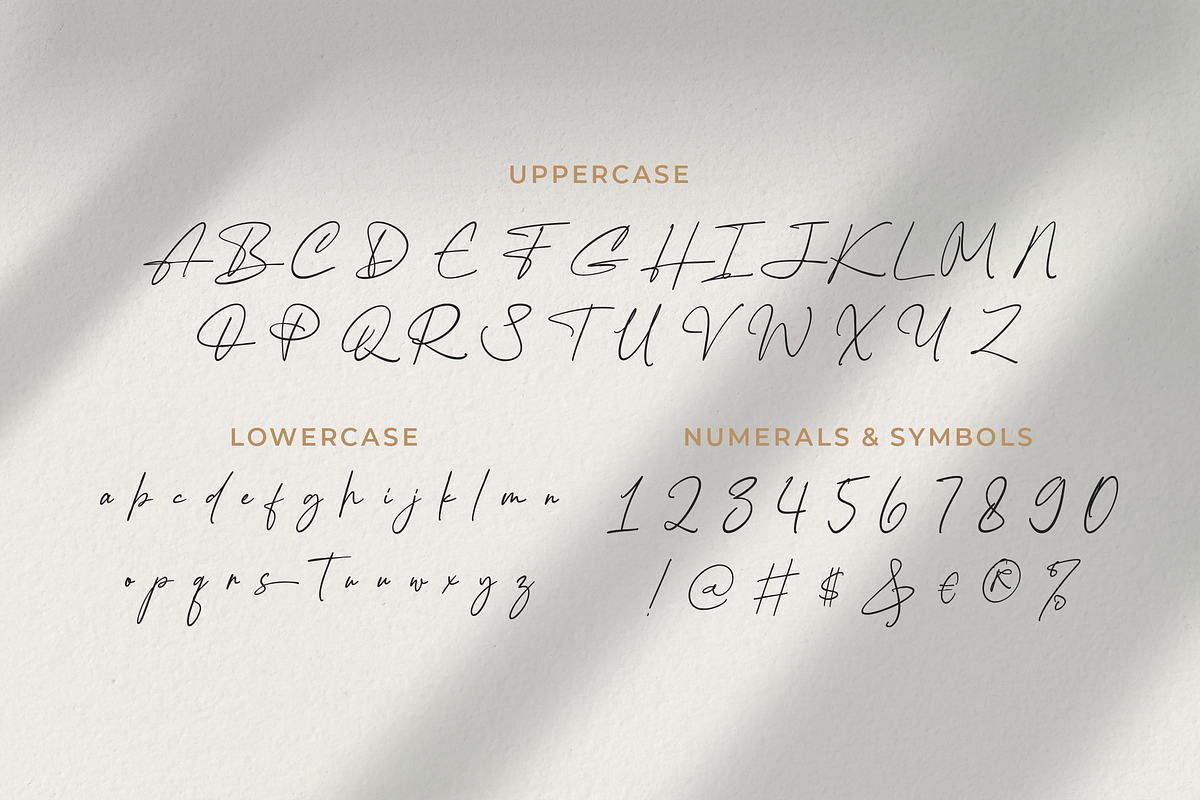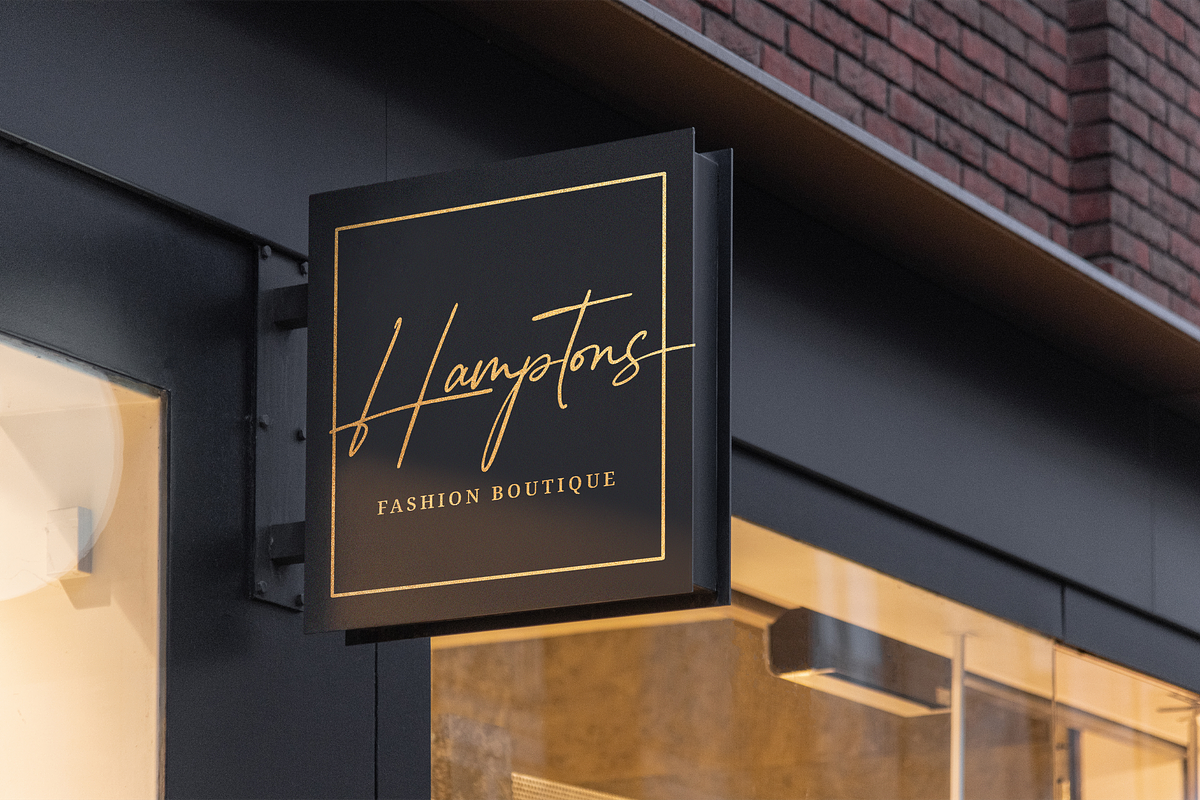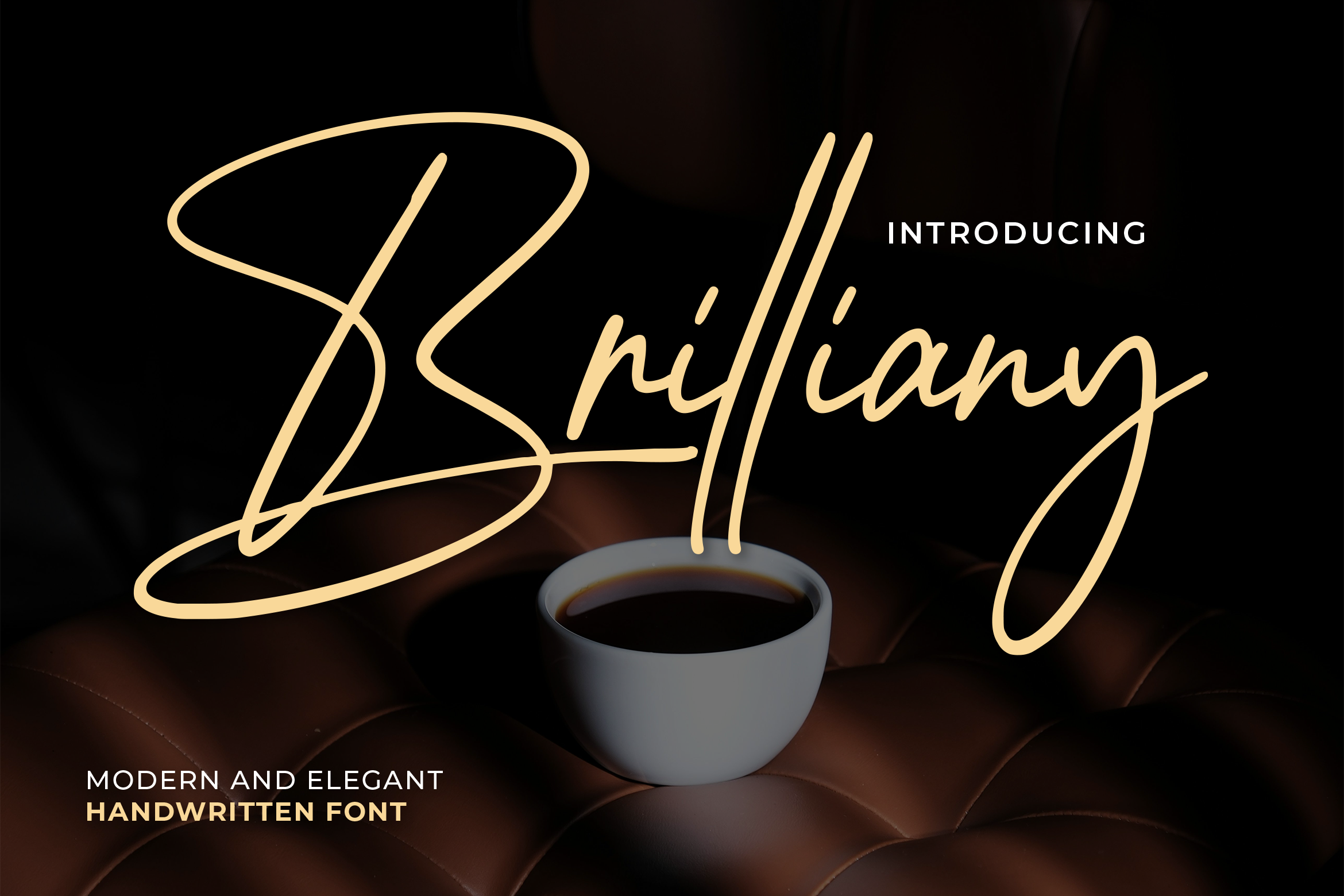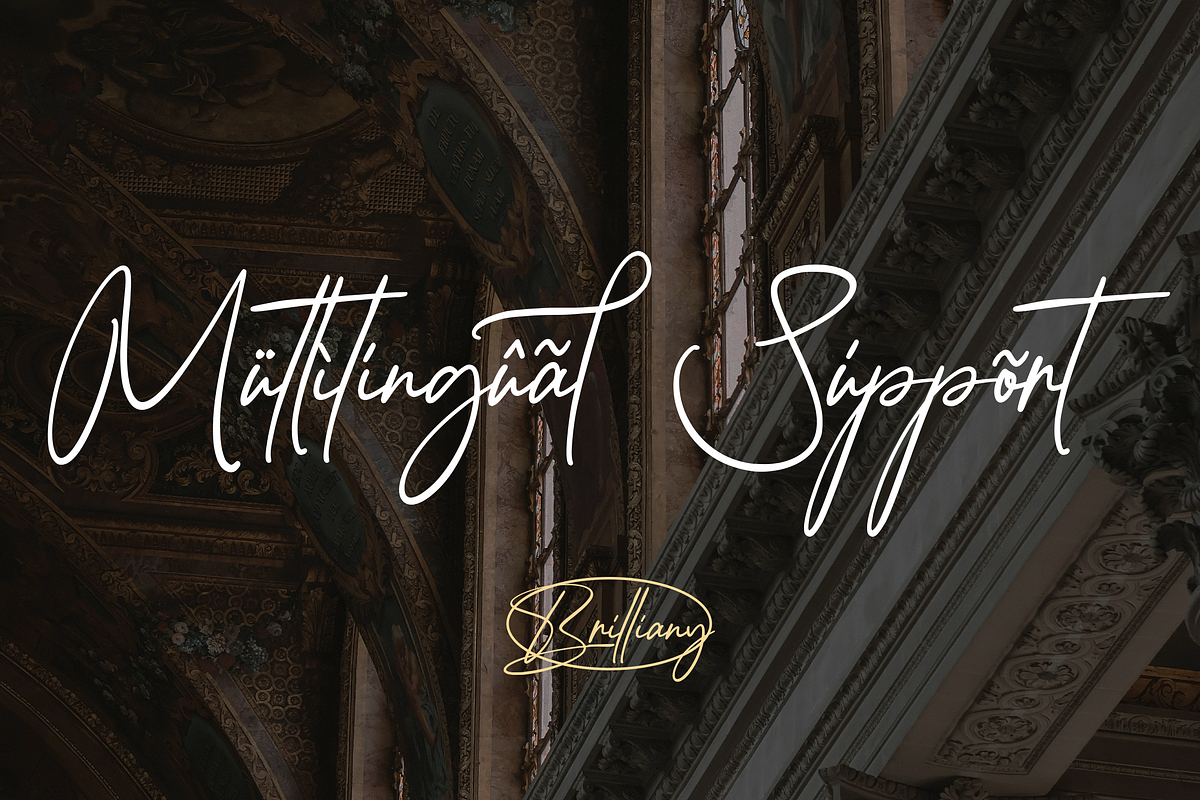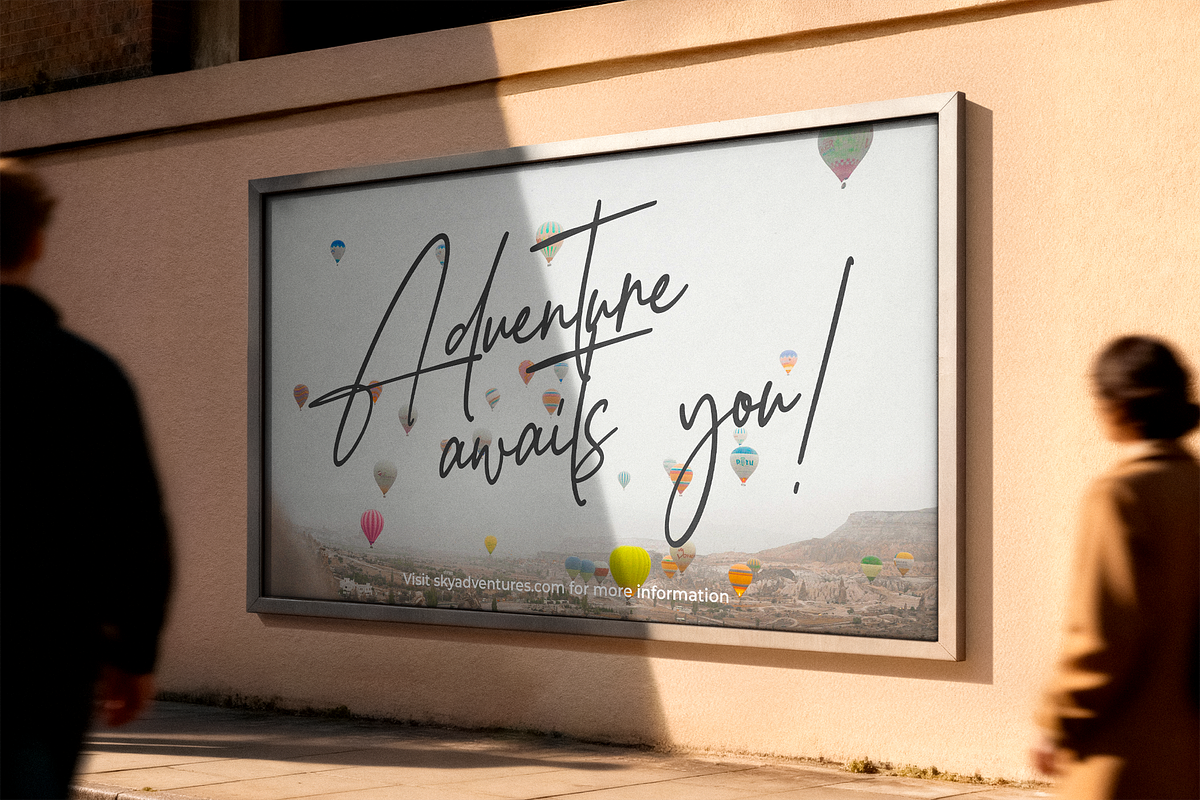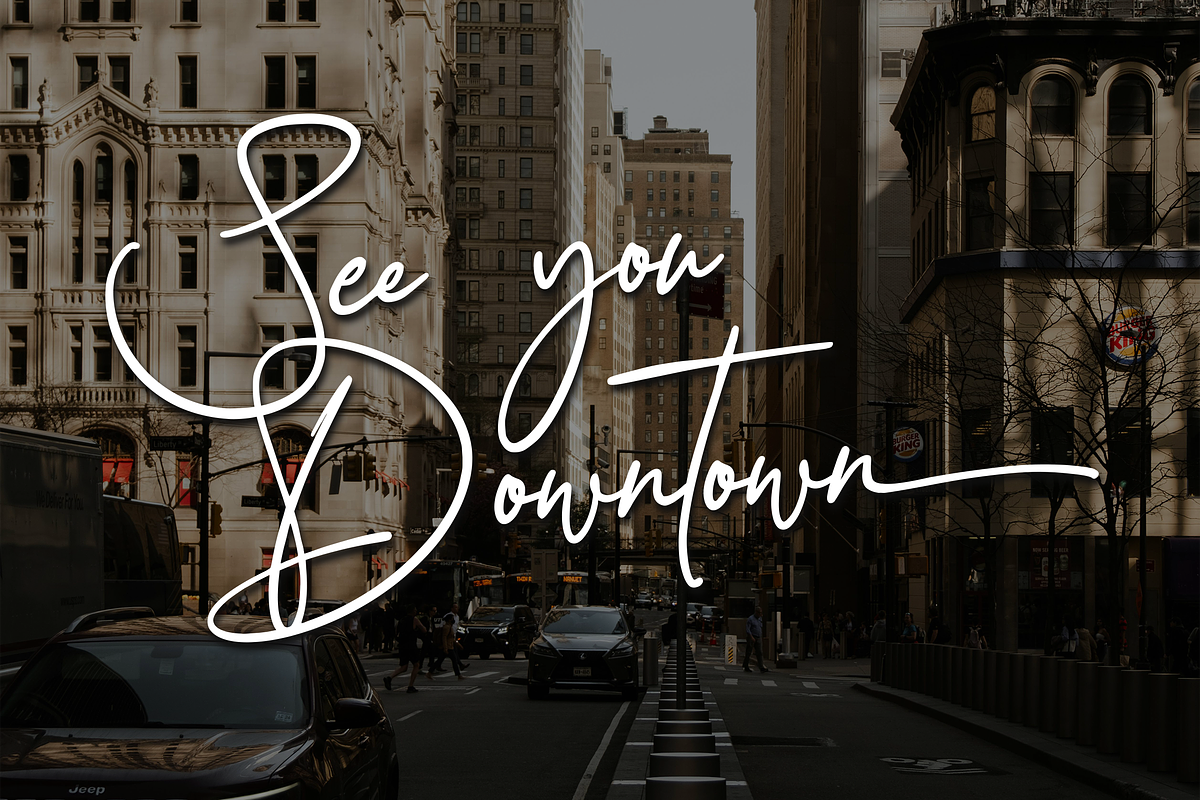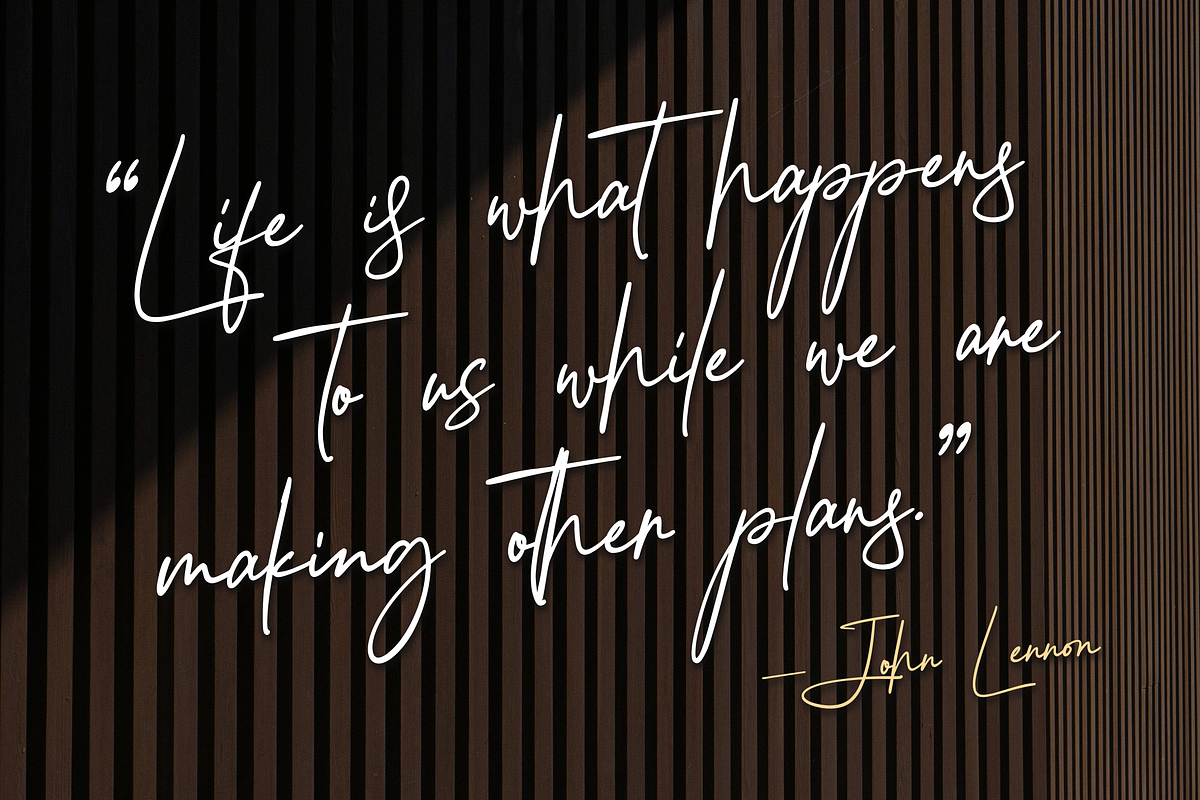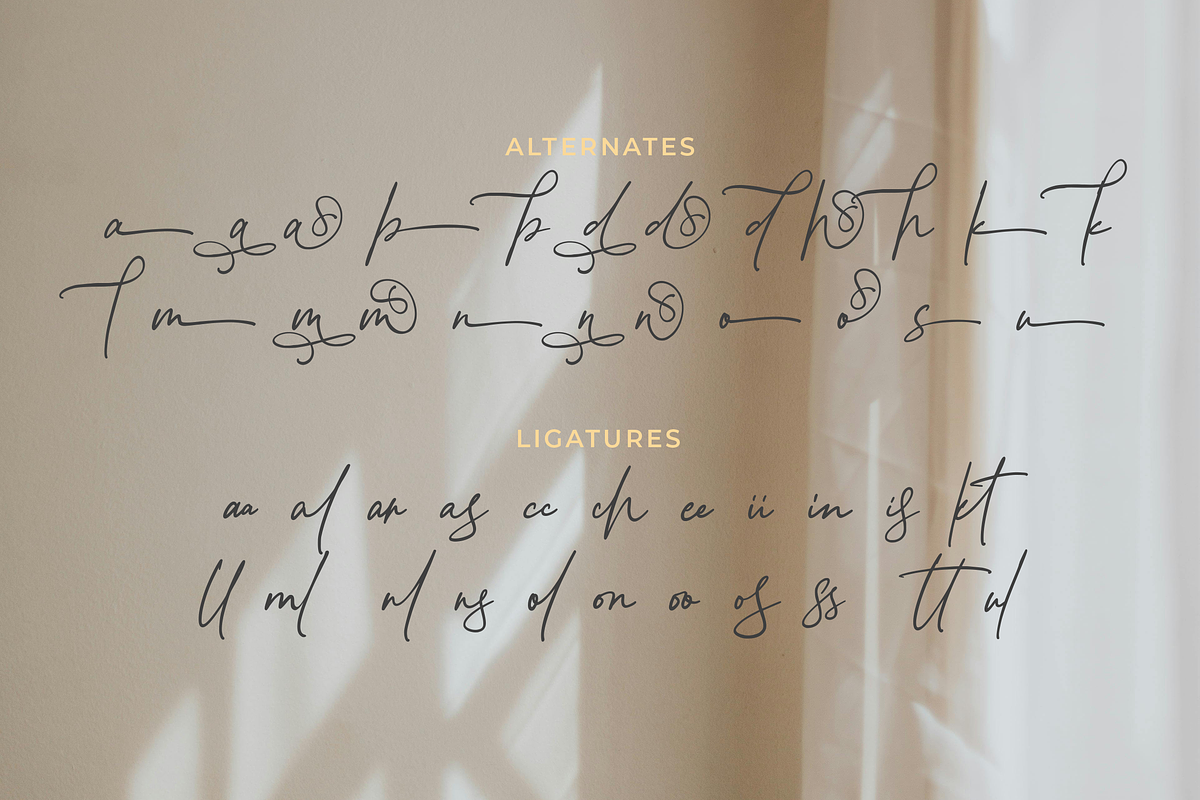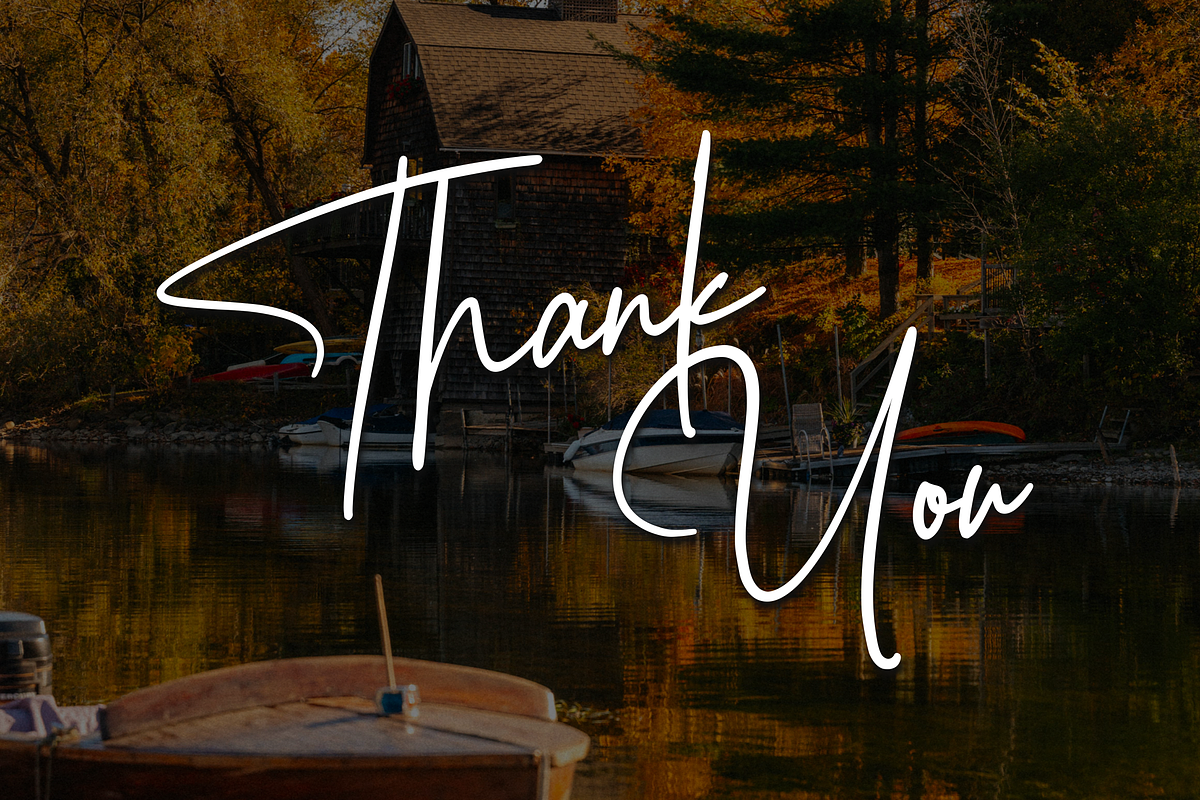
Brilliany Modern and Elegant Font
Introducing Brilliany - A Modern and Elegant Handwritten Font
This free-flowing handwritten font adds personality and movement to any project or promotion. Perfect for quotes, branding, social media posts, invitations and more.
Bring warmth and confidence to your designs with Brilliany’s natural strokes and stylish handwritten feel.
- Multilingual & Ligature Support
- Full sets of Punctuation and Numerals